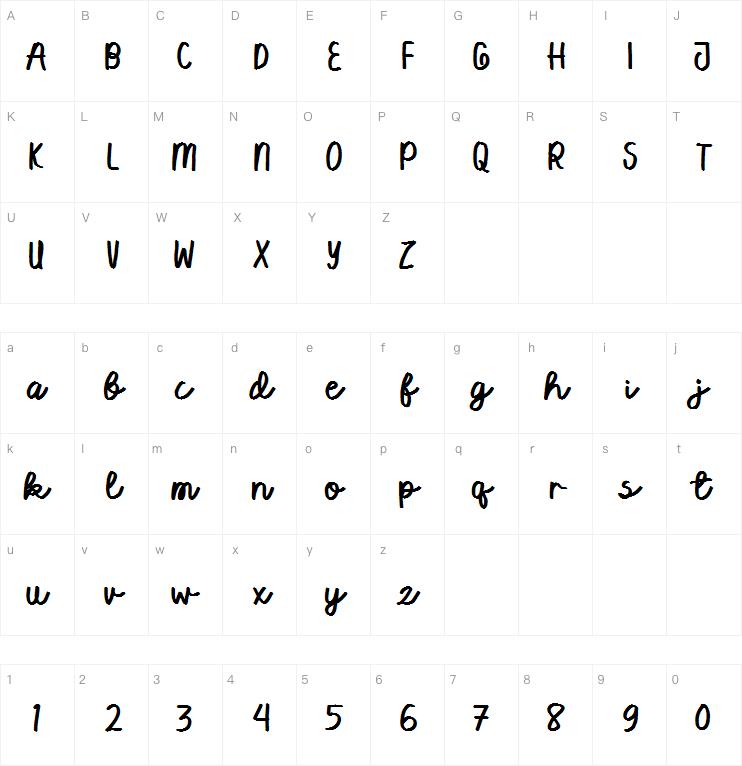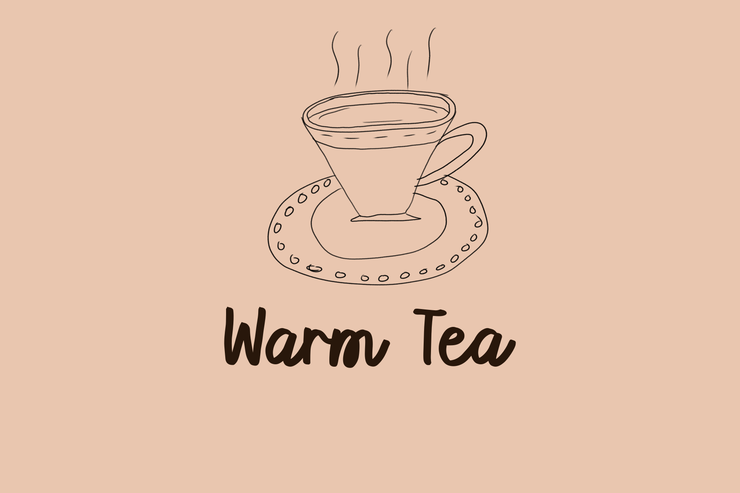
Warm Tea Stylish Trendy Tech Elegant English Font
Warm Tea is a delicate English typeface that blends stylish trend, futuristic tech vibe and elegant letterforms. It features smooth sleek strokes, well-balanced structure and soft sophisticated contours, creating a gentle yet modern visual temperament. The font combines fashionable texture with subtle technological sense, showing unique elegance and artistic appeal in every character. Complete with full uppercase and lowercase letters, it works perfectly for brand logos, fashion posters, web headlines, e-commerce banners, packaging design, UI text and decorative PPT typography. All glyphs are clear, scalable and easy to edit; you can freely adjust color, size and layout without losing detail and aesthetics. Suitable for designers, creative studios and commercial branding projects to add soft trendy and high-end style to all design works.Free for Commercial Use / No Copyright